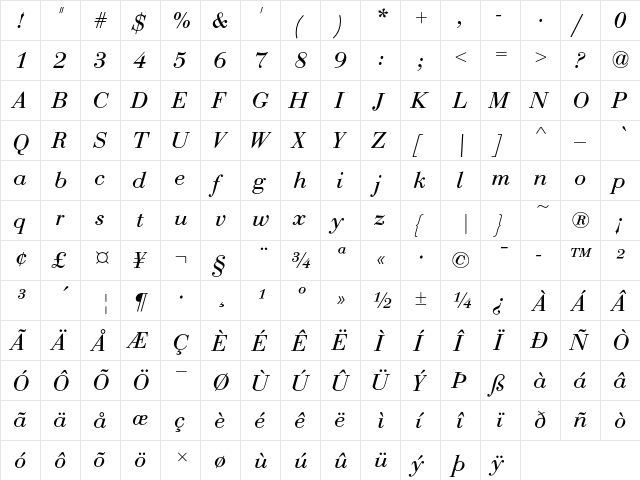
Bauer Bodoni T Regular Italic
Design Context for Bauer Bodoni T Typeface
Bauer Bodoni T is a composed and adaptable typeface that performs quietly and consistently across a wide range of design contexts. The slanted form adds forward momentum and visual energy.
Pro Tip: Use Bauer Bodoni T for emphasis, pull quotes, and subheadings where its slanted energy can add rhythm to the layout.